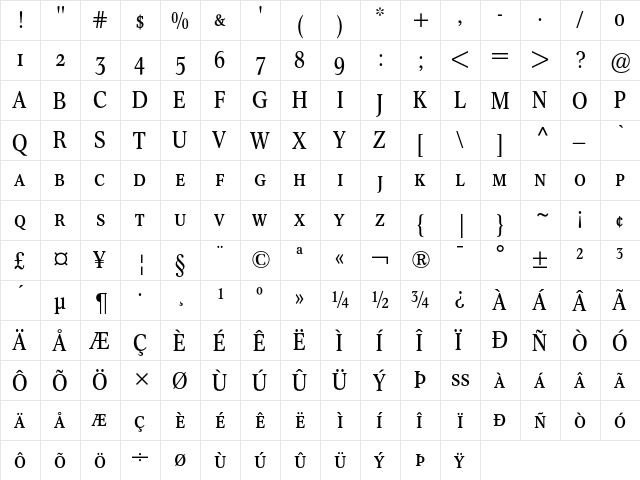
Concorde Nova Regular with Small Caps
Design Context for Concorde Nova Typeface
Concorde Nova offers clean, dependable letterforms without strong stylistic allegiance, making it a practical choice for designers who need flexibility.
Pro Tip: Use Concorde Nova in both headline and body roles to test its range before committing to a single application.